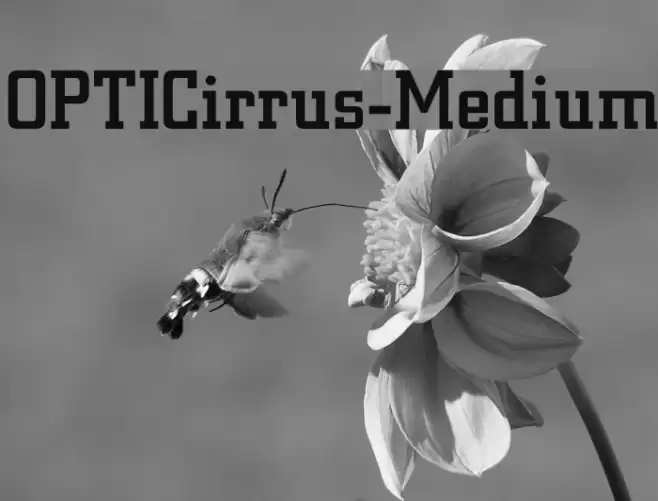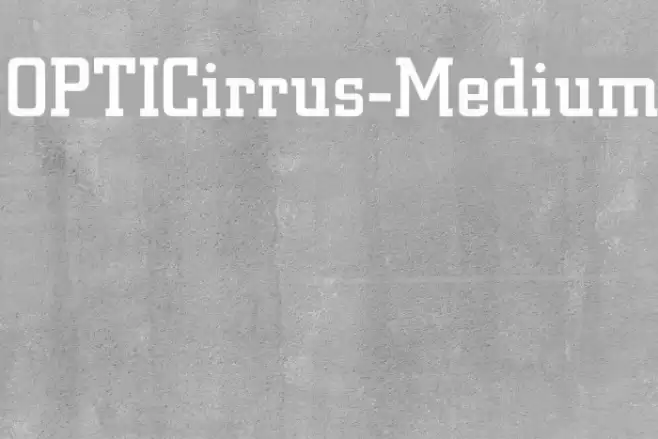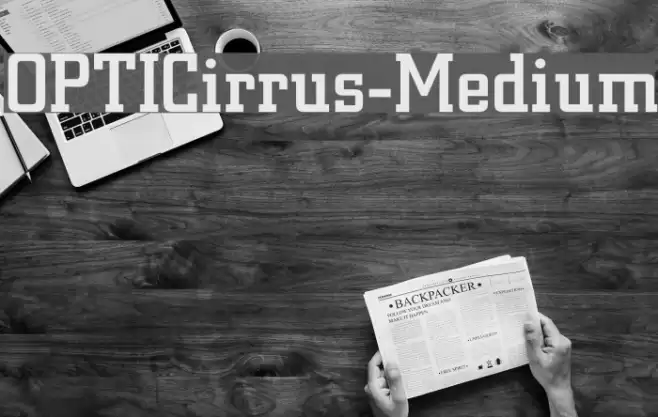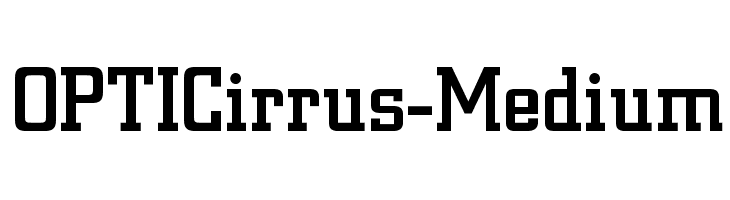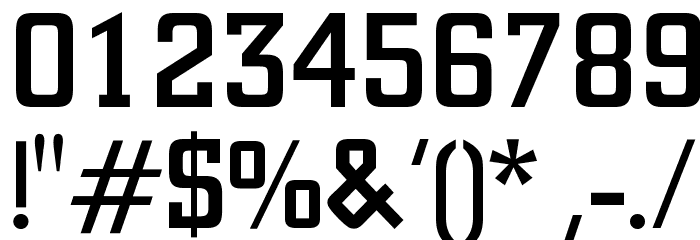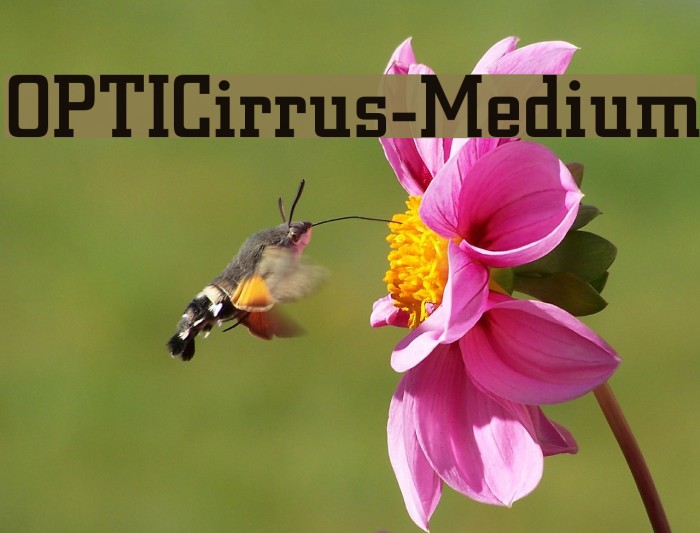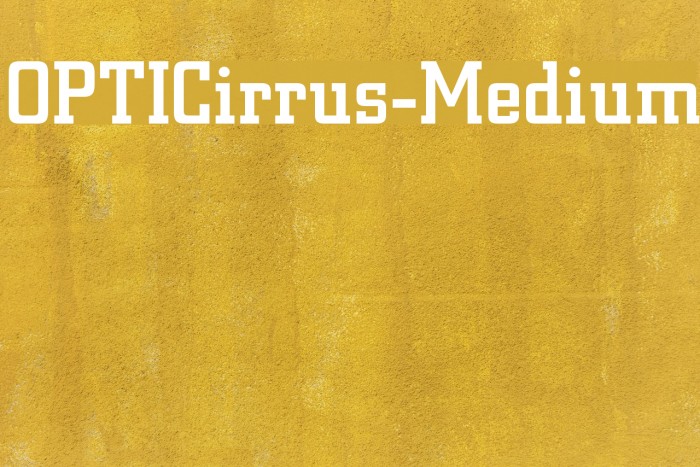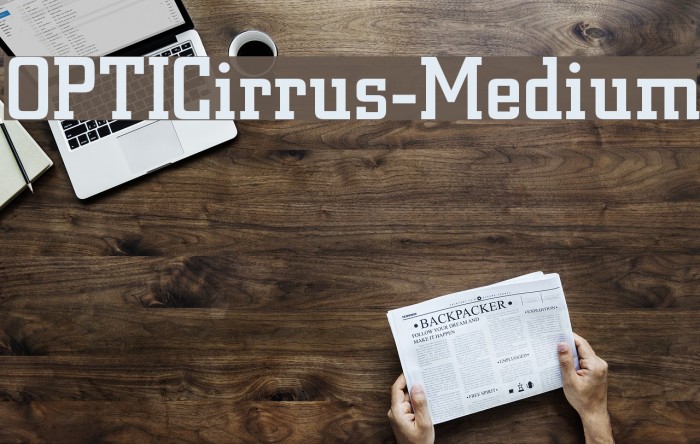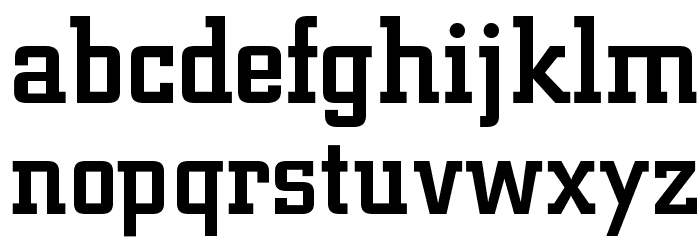
OPTICirrus-Medium Font
OPTICirrus-Medium Description
This font features a bold and structured design with a modern aesthetic. The uppercase letters are tall and slightly condensed, giving a strong and impactful appearance. The lowercase letters maintain a consistent height with rounded edges that soften the overall look. Numbers are clear and legible, designed with a uniform width that complements the alphabetic characters. Special characters are distinct and well-integrated, ensuring versatility in various contexts. The font's clean lines and geometric shapes make it suitable for contemporary design projects.
A bold, modern font with structured, geometric shapes and a slightly condensed style from Uncategorized fonts.
- Proposed Projects: Ideal for branding, advertising, headlines, and digital media projects that require a modern and impactful typeface.
- Use Case: Headlines, Logos, Branding